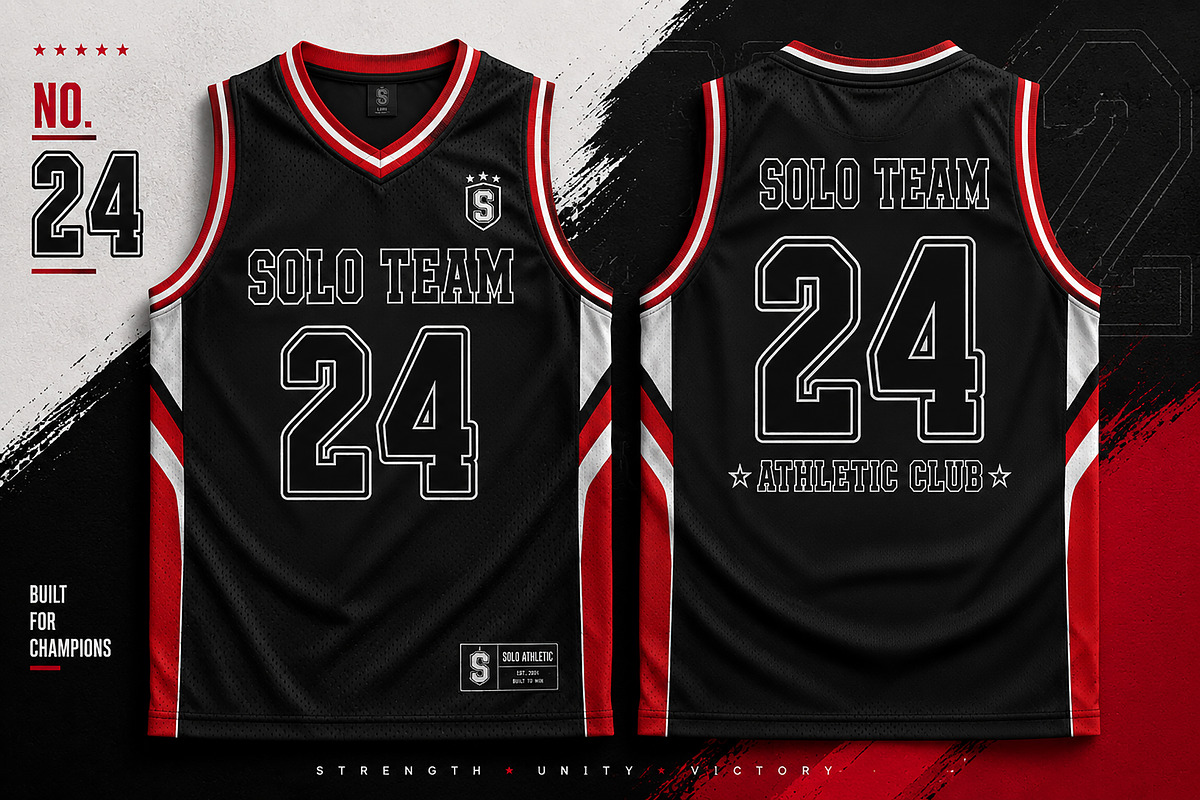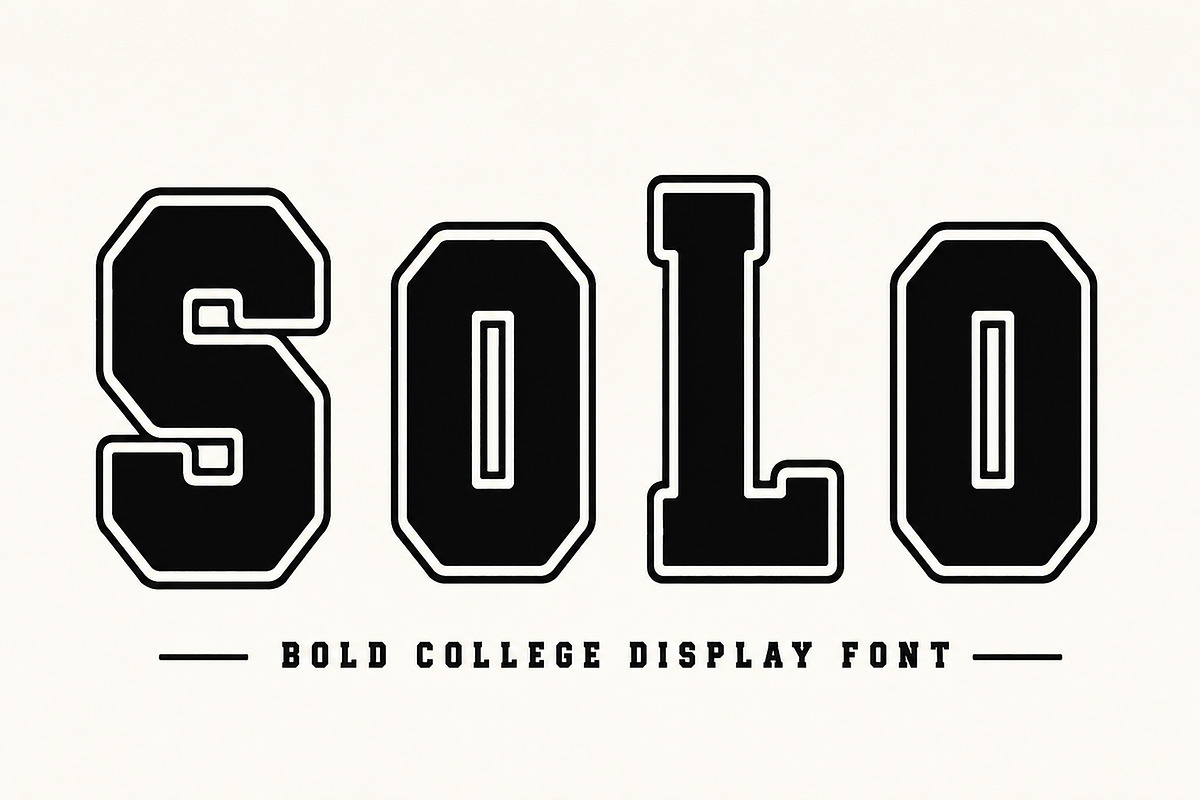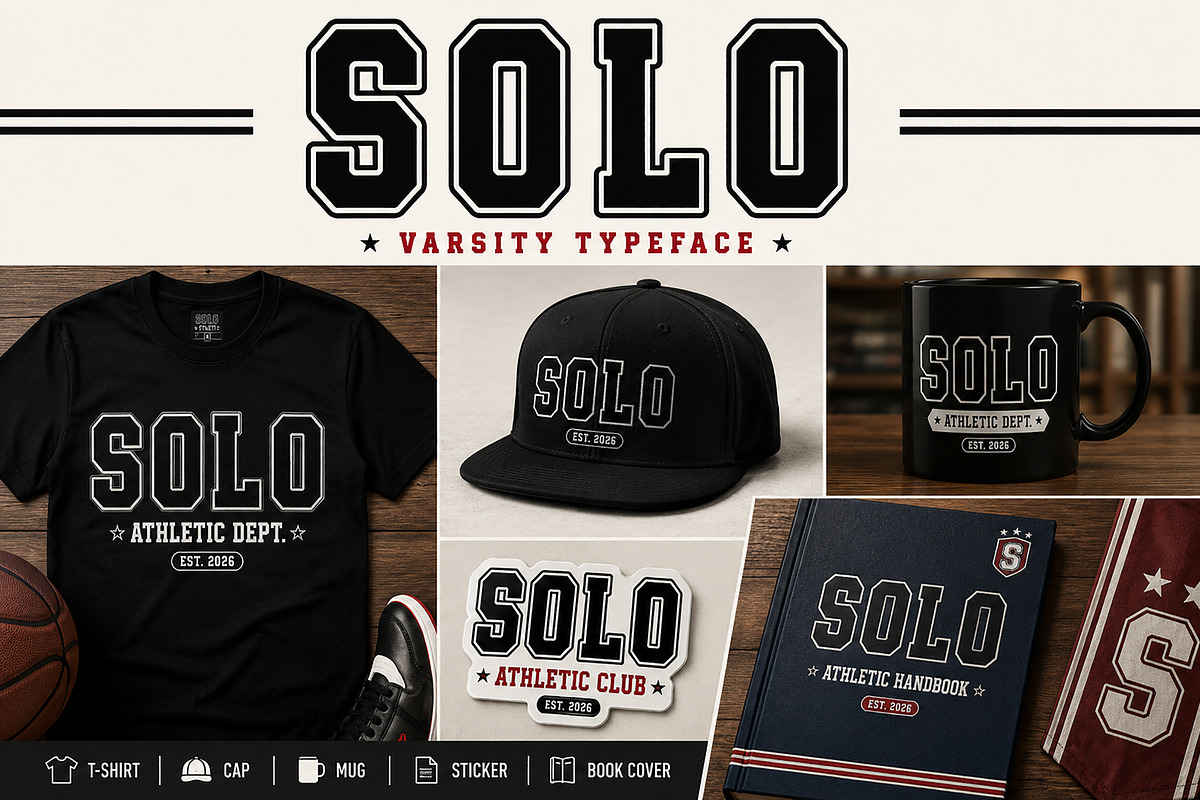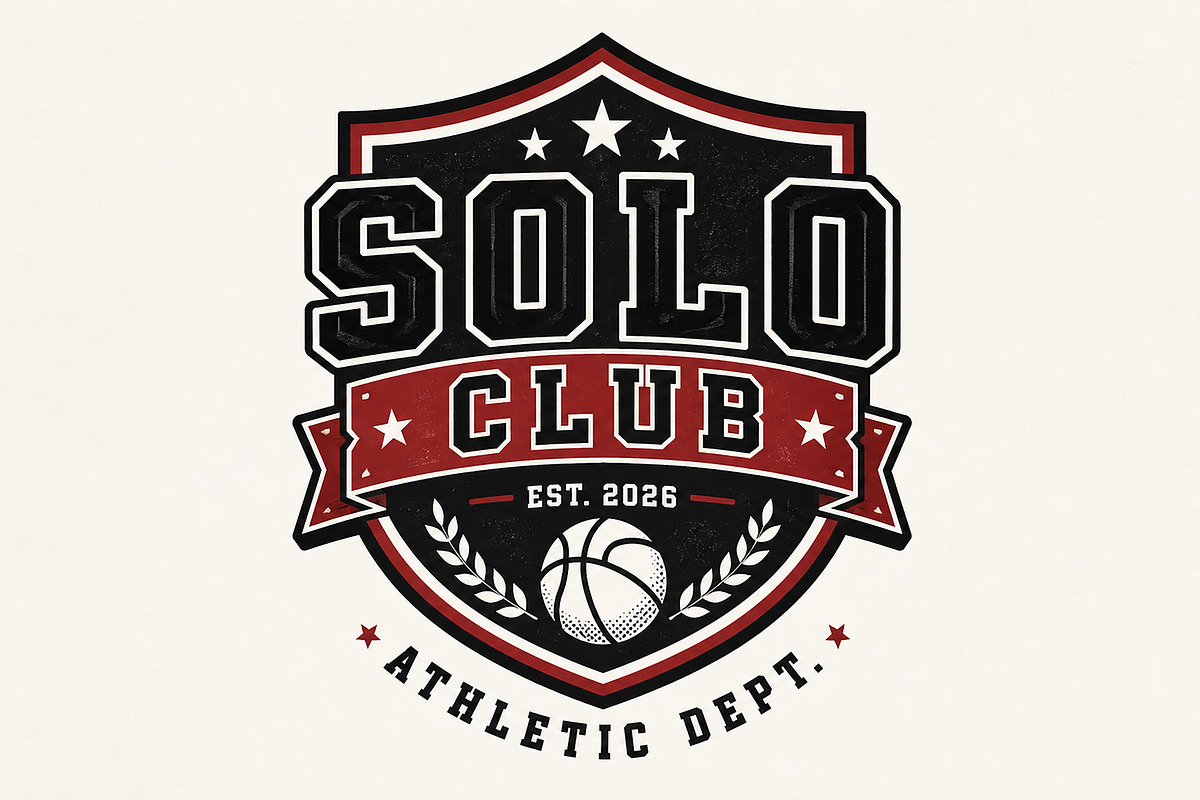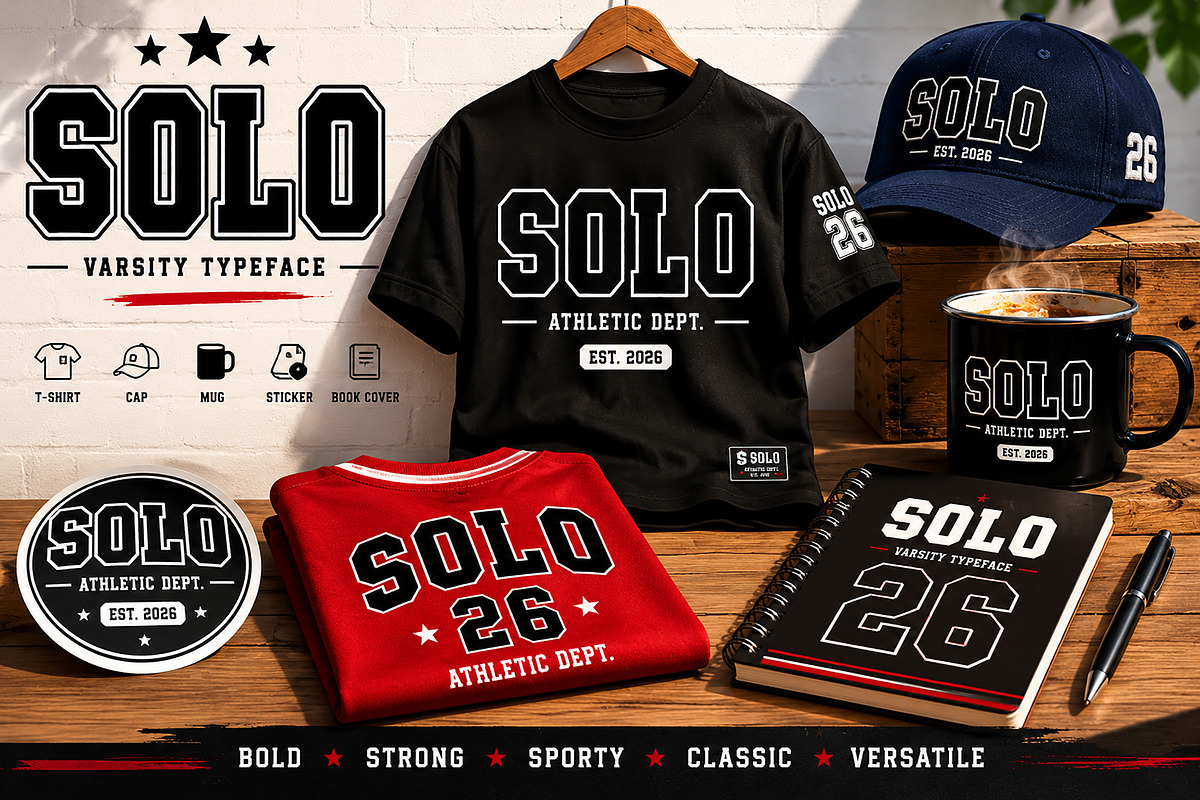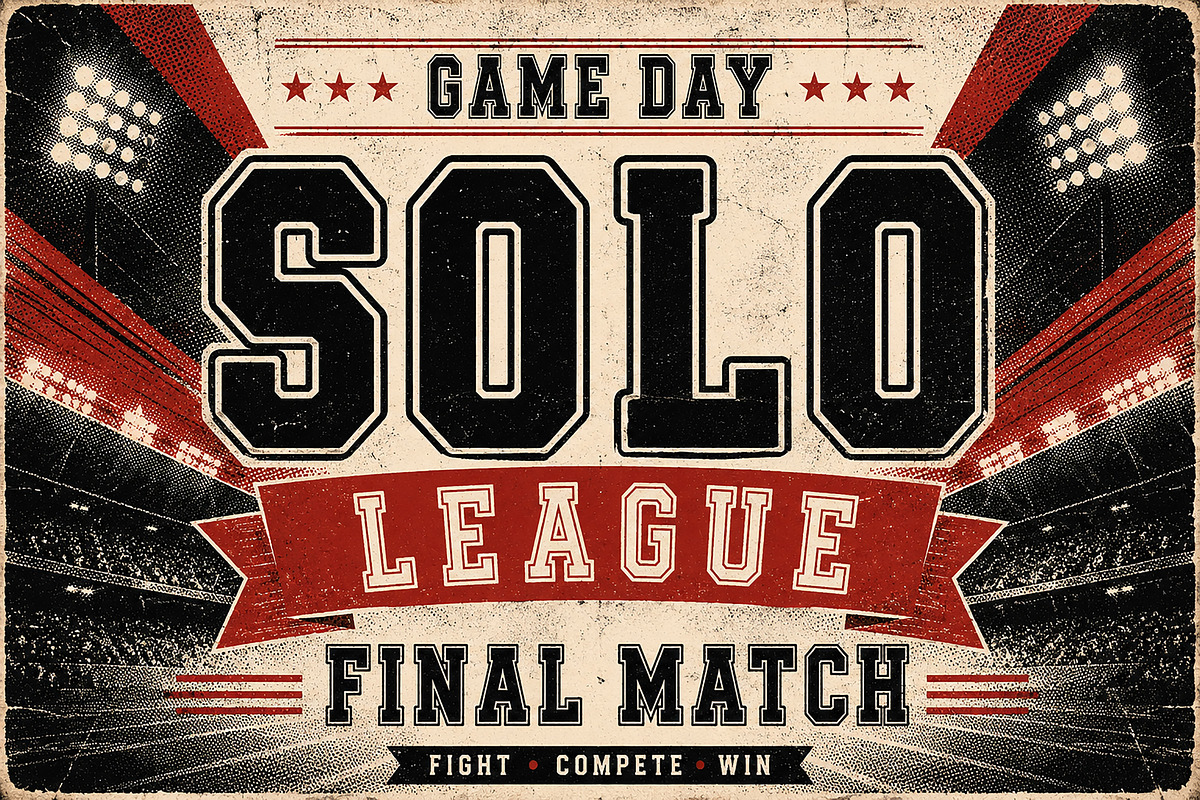
Solo
SOLO – Bold College Display Font
SOLO is a bold varsity-inspired display font designed to bring a strong athletic and collegiate feel to your creative projects. With its sharp edges, sporty character shapes, and classic college-style appearance, SOLO is perfect for sports branding, jersey designs, team logos, posters, apparel, stickers, merchandise, and vintage athletic themes.
This font combines a modern sports aesthetic with a timeless varsity look, making it ideal for both professional and creative use. Whether you are creating basketball jerseys, football posters, gaming logos, university branding, or streetwear designs, SOLO delivers a bold and energetic visual impact.
Sports Jerseys
College & Varsity Designs
Team Logos & Badges
Athletic Posters
Streetwear Branding
T-shirt Designs
Stickers & Merchandise
Gaming & Esports
Vintage Sports Themes
Uppercase Characters
Bold Collegiate Style
Clean Outline Details
Easy to Read
Strong Athletic Look
Perfect for Display Use
Create powerful sports-inspired typography with SOLO and give your designs a championship-ready appearance.